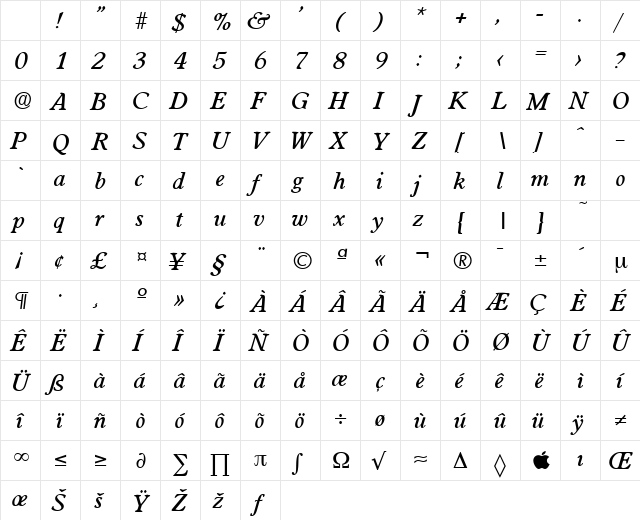
Complete Worcester-Serial-Medium RegularItalic glyph index. Displaying only characters natively supported by Worcester-Serial-Medium RegularItalic font.
Worcester-Serial-Medium is a composed and adaptable typeface that performs quietly and consistently across a wide range of design contexts. The slanted form adds forward momentum and visual energy.
Pro Tip: Use Worcester-Serial-Medium for emphasis, pull quotes, and subheadings where its slanted energy can add rhythm to the layout.